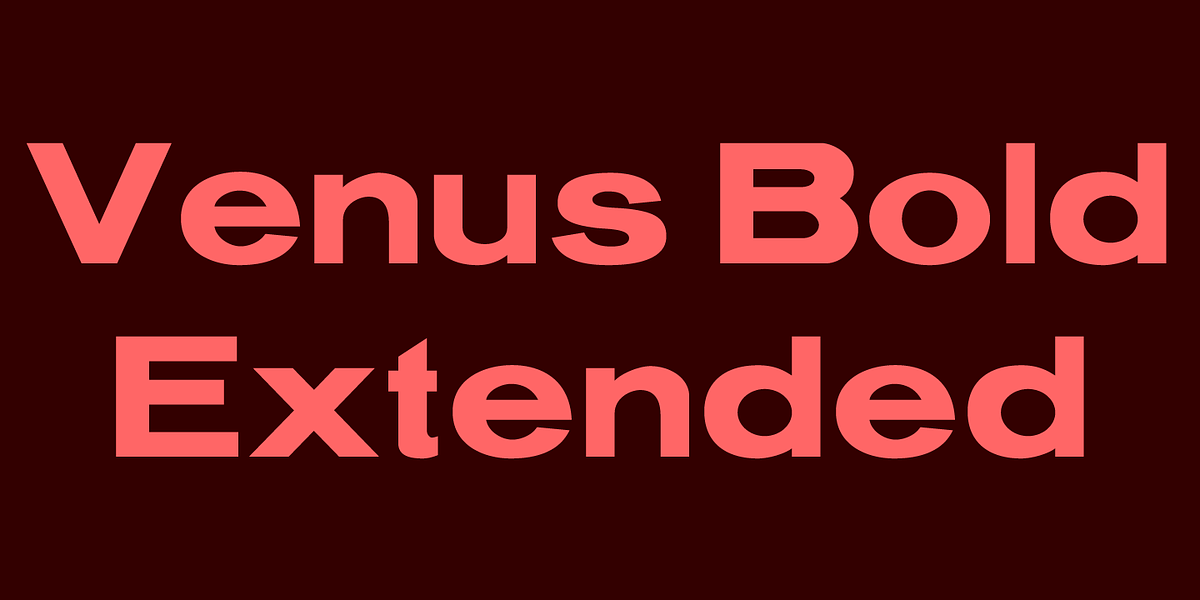
Venus Bold Extended
This is a classic sans serif font known for its bold weight and extended width. It's well-suited for display purposes such as posters and advertisements where legibility and impact are crucial.